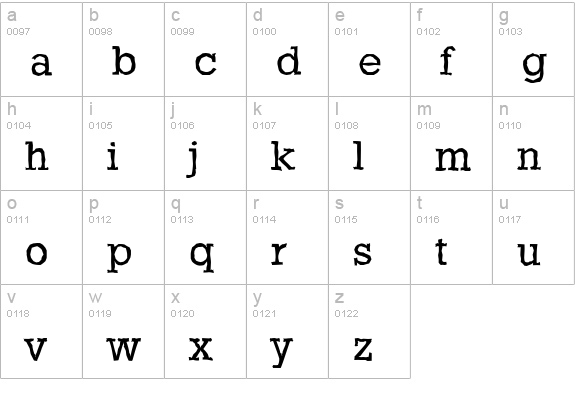
StaffordAntique-Regular Font Details
StaffordAntique-Regular is the standard, neutral variant in the StaffordAntique typeface family \xE2\x80\x94 well suited to general body text, paragraphs, and standard typographic work.
StaffordAntique-Regular is a timeless and elegant serif font that exudes sophistication and charm. With its classic and refined design, this font is perfect for adding a touch of vintage flair to your projects. Whether you're designing invitations, logos, or branding materials, StaffordAntique-Regular will bring a sense of nostalgia and elegance to your work. What makes StaffordAntique-Regular even more appealing is that it is available for free download at FontsMarket.com. This means you can effortlessly enhance your designs with this beautiful font without any cost. Don't miss out on the opportunity to elevate your projects with the timeless beauty of StaffordAntique-Regular. Download it today and bring a touch of old-world charm to your creations.